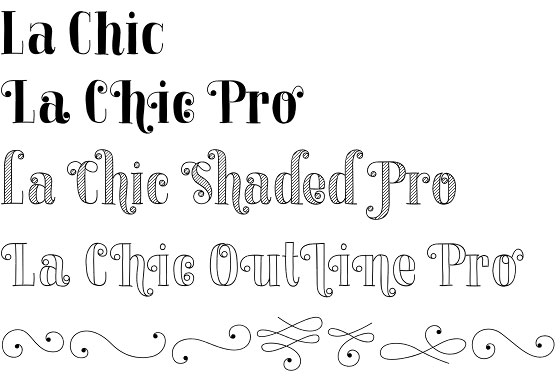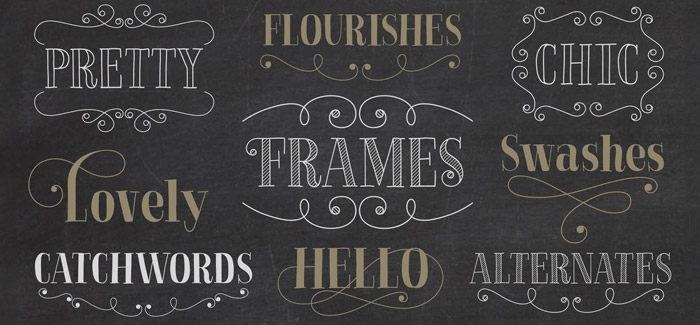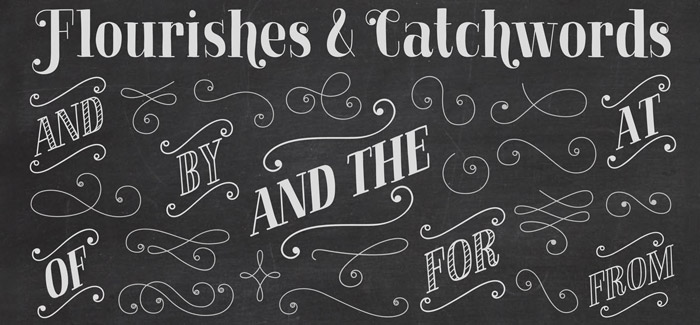
La Chic font
La Chic font by the Canadian graphic designer Cindy Kinash (Cultivated Mind foundry) is a handwritten beautiful vintage Serif font family, full of creative spirit and potential. It consists of 12 fonts including 6 ornamental sets and catchwords and an extended character set of 575 glyphs covering a range of languages and alternate versions of letterforms for display use.
La Chic font family offers a full spectrum of OpenType features providing opportunities for unlimited creative applications – from posters and headlines to package designs and signage. Some of them include standard ligatures, stylistic alternates, swash alternates, frames, catchwords, and many others.
La Chic’s Ligature feature offers the standard fi and fl ligatures, as well as ff, ffi and ffl ligatures. La Chic Pro’s Stylistic Alternates feature adds a little more flair to the mix with mildly flourished Capitals, scripted so that when typeset in all caps, only the first Capital will be flourished to preserve legibility and avoid collisions.
La Chic Pro’s Stylistic Alternates feature includes automatic Initial & Final lowercase letterforms that will automatically swap to avoid any letter collisions as you type.
La Chic’s Swash Alternates feature takes the flair even further with elegantly flourishing Capitals, also scripted so that when typeset in all caps, only the first Capital will be flourished to preserve readability and avoid unsightly collisions. The complete lowercase is also substituted for a flourishing lowercase set.
By enabling both the Stylistic Alternates and Swashes features, automatic Initial & Final lowercase letterforms that will automatically swap to avoid any letter collisions as you type including the flourishing swashes lowercase.
All features have Special Titling Swap-Out Ligatures for the following words “and”, “of”, “at”, “from”, “by”, “and the” when typed in Parenthesis (whether typeset in Capitals or lowercase).
All features also include a small batch of Special Long Flourish characters enabled by typing an underscore after each letter (IE: H_, L_, t_ ,and w_).
And there’s even more: 51 additional letters not blended into any of the Opentype features are accessible by way of a Glyph map in compatible programs and/or system options to personalize your La Chic designs even further.
Cindy Kinash is an apparel graphic designer from Canada which has decided to devote herself to typography.
Cultivated Mind is a new foundry established in 2012 focused on designing quality handwritten typefaces and unique artwork.